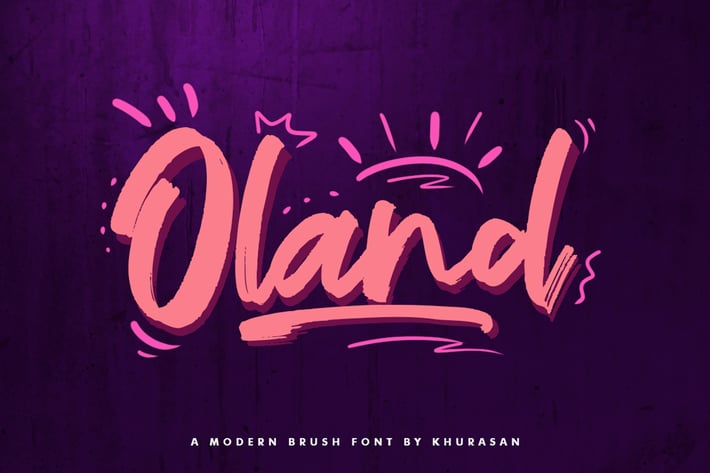
Oland Brush Font
khurasan
The Oland is a fresh brush font, elegant and modern feel character set. The Oland font as well as multi-lingual support, swashes, uppercase, lowercase, numerals, & punctuation.